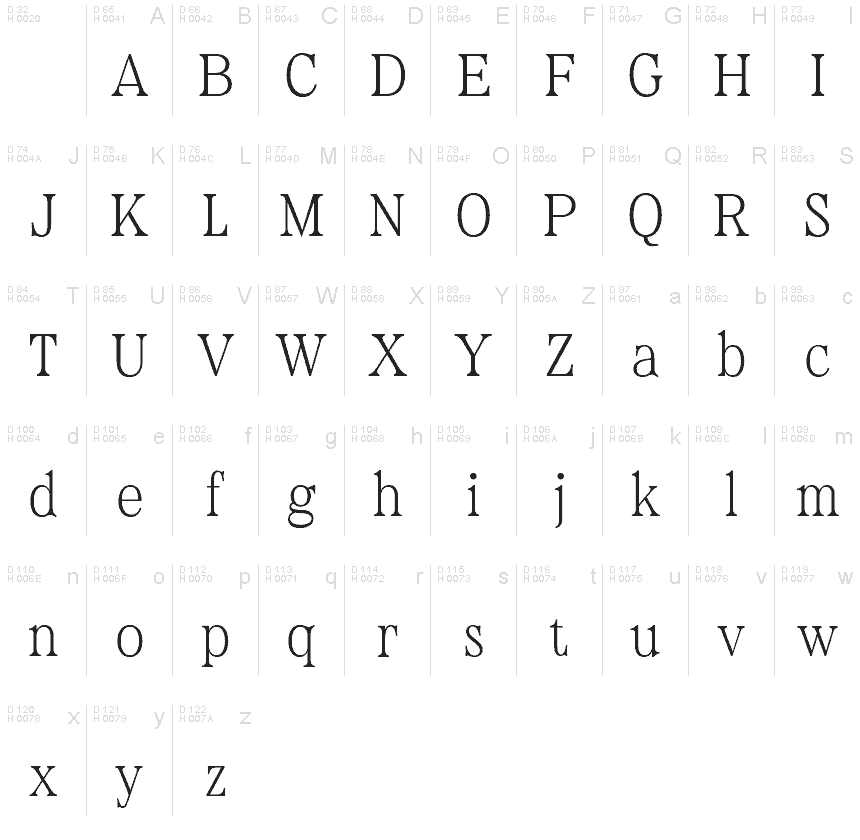
CS Sheila font crafted by Craft Supply Co. is an elegant and refined serif font. The sophisticated aesthetic of this condensed-font is one with a traditional influence, thus making it suitable for formal contexts which require a bit of daintiness to balance out the weight and seriousness that any brand carries.
Enjoy using this free serif font for hotel, restaurant, cafe/shop branding, luxury product packaging/labeling, and logo design. Incorporate it in your novels’ or books’ covers and pair texts with its variety of characters for an unparalleled final result.